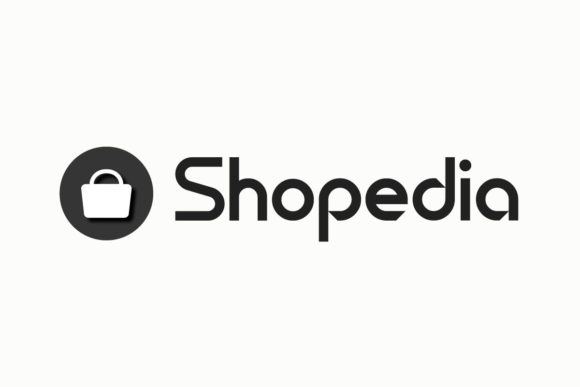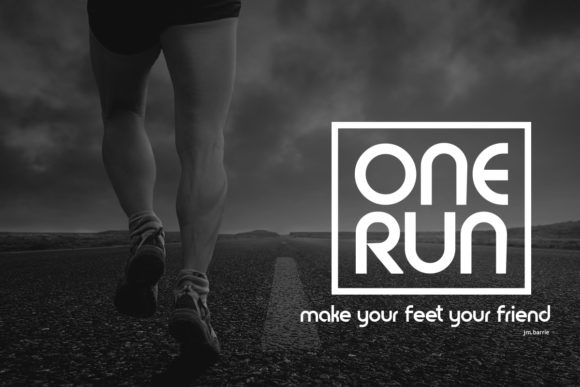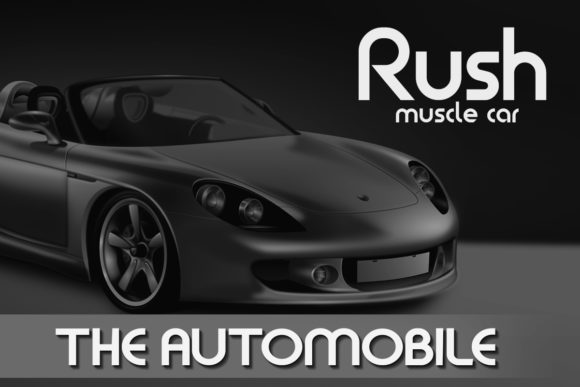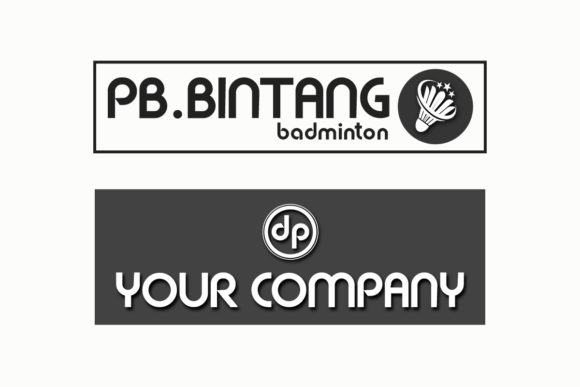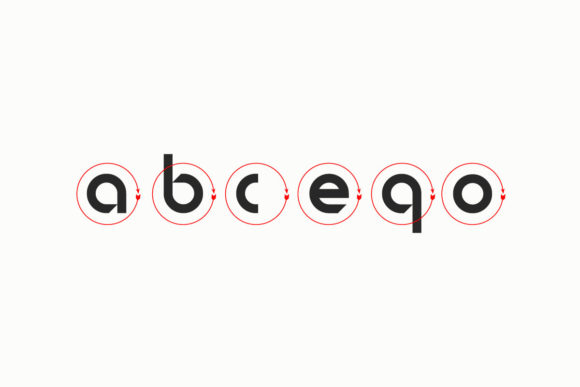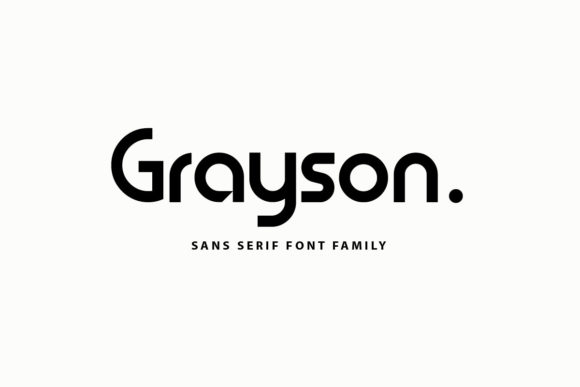
HomeSans Serif FontsGrayson Font Sans Serif Fonts Grayson Font FacebookTwitterPinterestWhatsApp Grayson Font 1 of 6 About Grayson Font Grayson is a modern sans serif font. It will give a modern touch to your designs. It’s perfect for logos, magazines, branding and much more! DOWNLOAD NOW People also explored Home and Garden Advertising Font Play Strawberry Font Feels so Good Font Dettina Girls Font Monogram Digigrabs Font Bonica Font Roster Holding Font Alphabet Font Chunkie Duo Font 164 0 TagsGraysonGrayson Font Previous articleChocolate Drink FontNext articleNadir Font LEAVE A REPLY Cancel reply Comment: Please enter your comment! Name:* Please enter your name here Email:* You have entered an incorrect email address! Please enter your email address here Website: Save my name, email, and website in this browser for the next time I comment. Personal Use Free Eric”s Personal Use Free Read more about this font Vexler Slip Personal Use Free Read more about this font Wordan Personal Use Free Read more about this font Gonestones Personal Use Free Read more about this font BLOG To increase your work productivity, choose the most readable fonts. In today's fast-paced work environment, where digital communication and information consumption are integral to our daily routines, the choice of fonts can significantly impact... Free Fonts Risk: Why Free Fonts Can Be Dangerous for Designers Using Fonts in Digital Marketing: Tips to Strengthen Your Brand Identity Exploring Font Trends